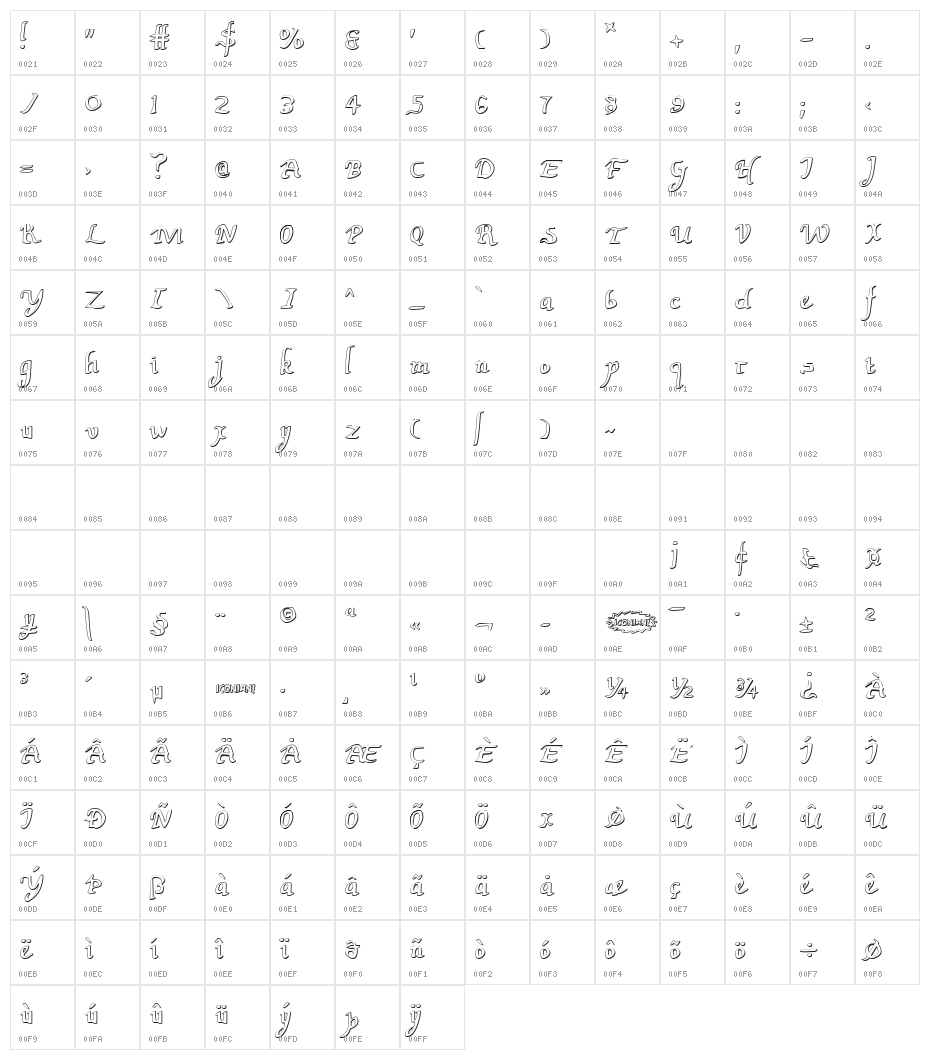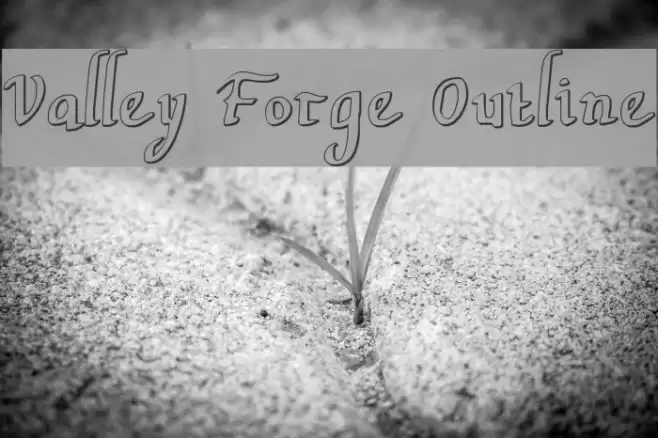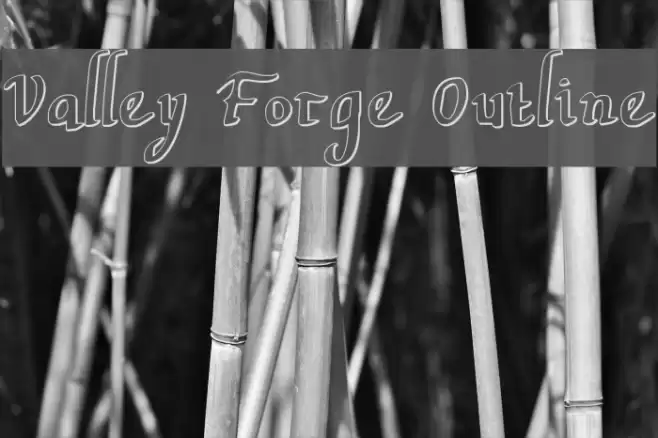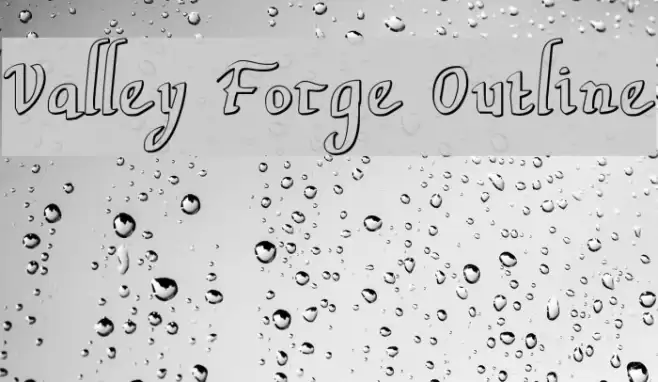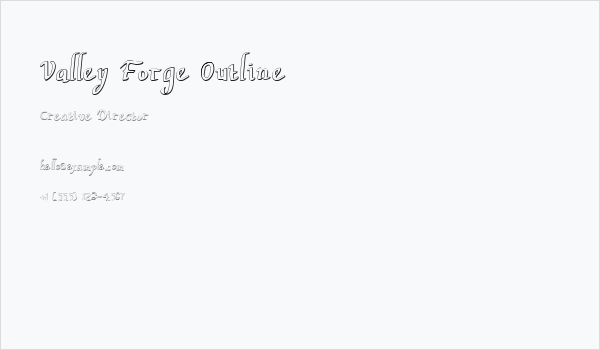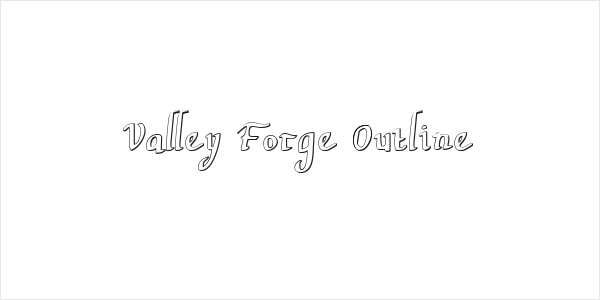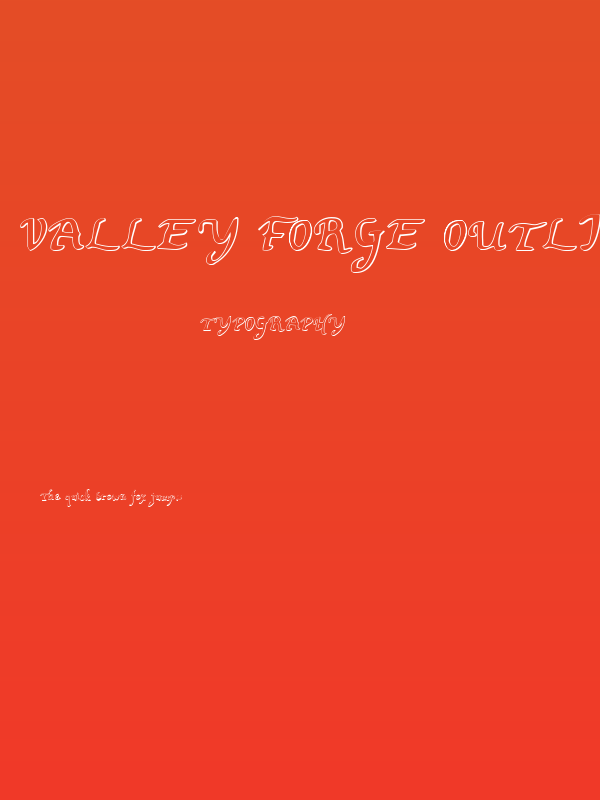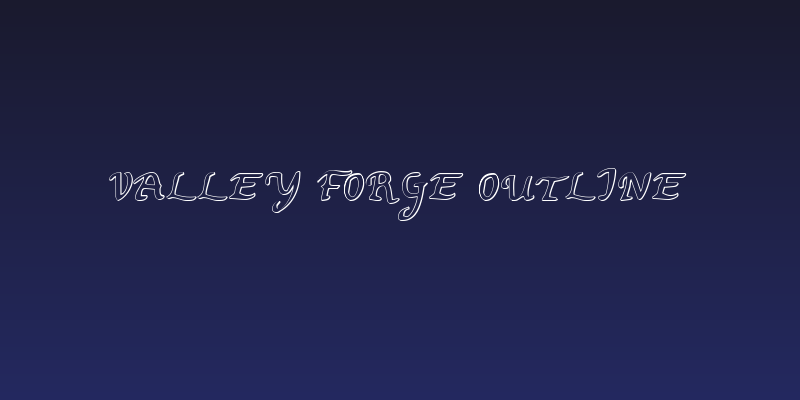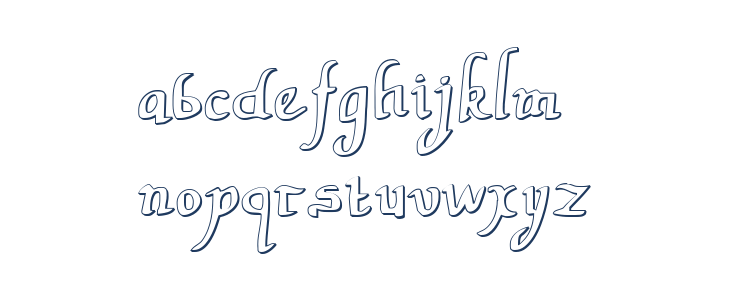
Valley Forge Outline Font
Valley Forge Outline Description
This font features an outline style with a playful and decorative flair. The characters are designed with a whimsical touch, incorporating curves and swirls that give it a unique and artistic appearance. The uppercase letters have a bold presence, while the lowercase letters maintain a consistent style with slightly exaggerated curves. The numbers and special characters follow the same decorative theme, making the font suitable for creative projects. The overall design is eye-catching and distinct, perfect for adding a touch of personality to any text.